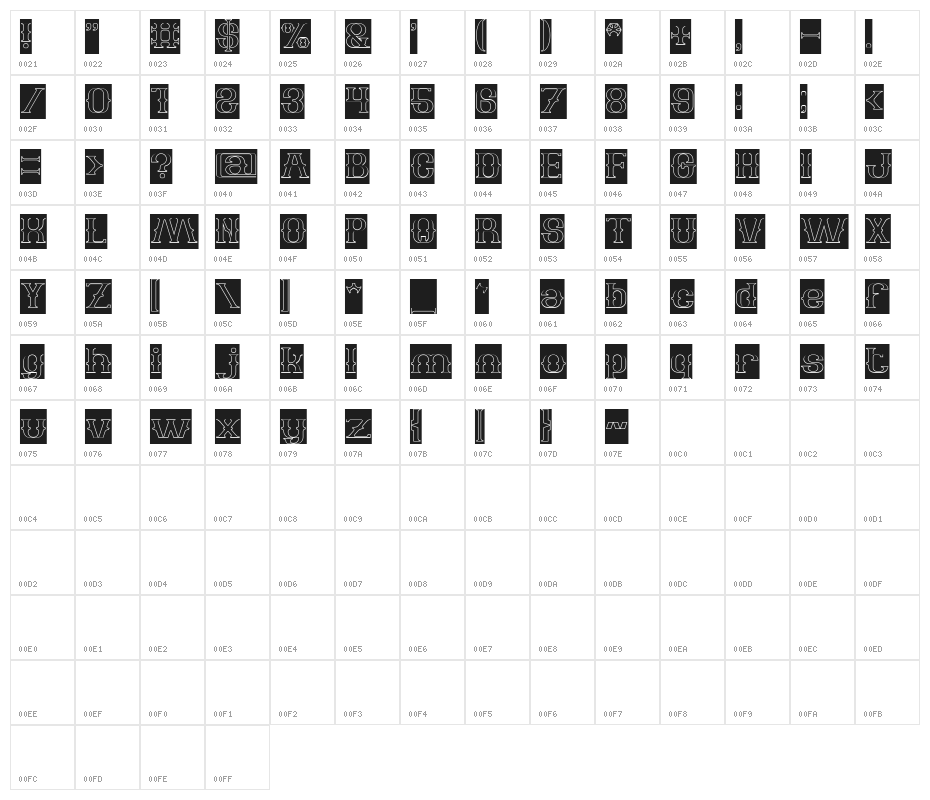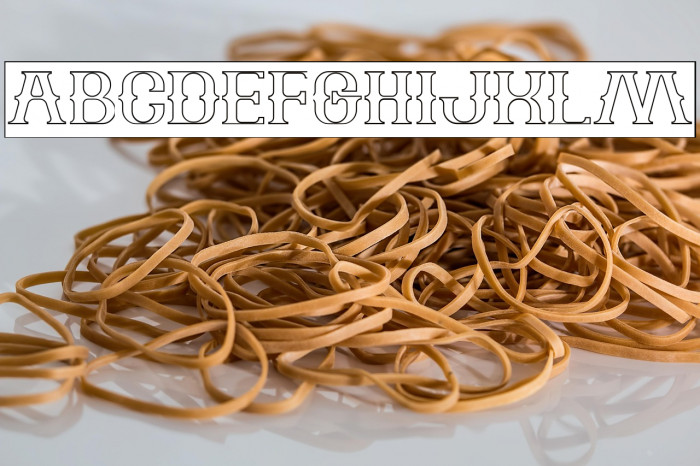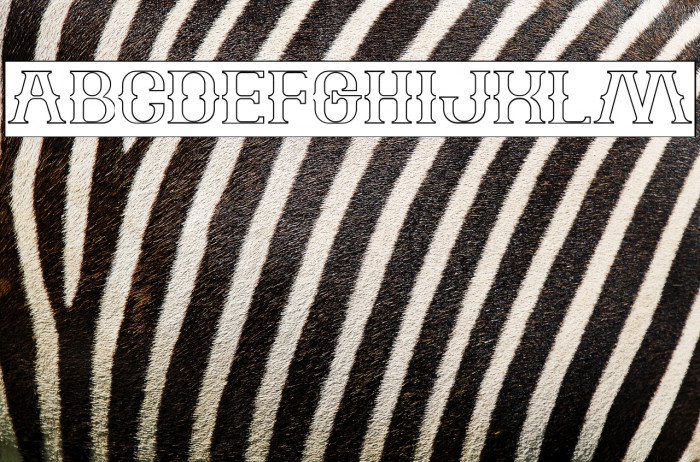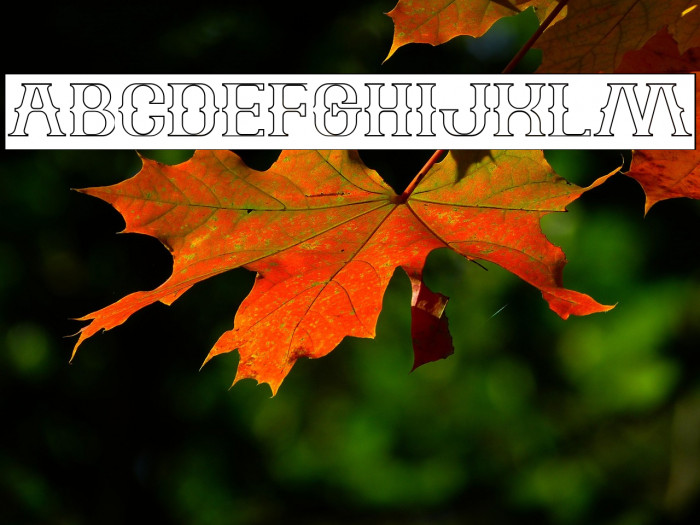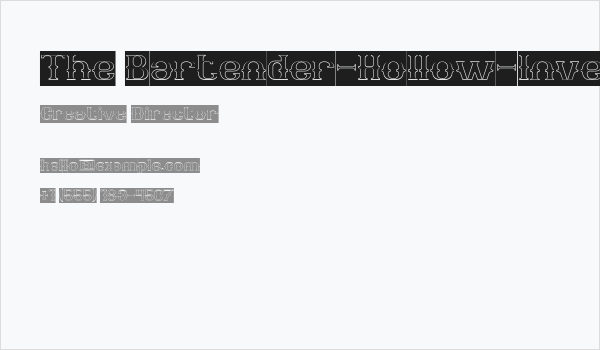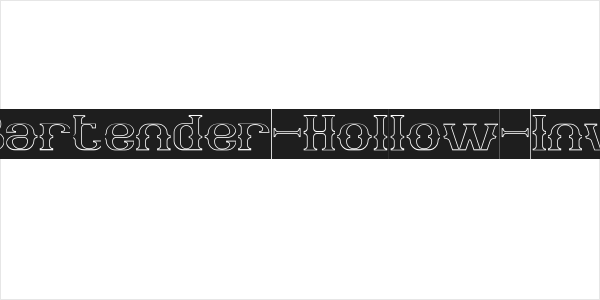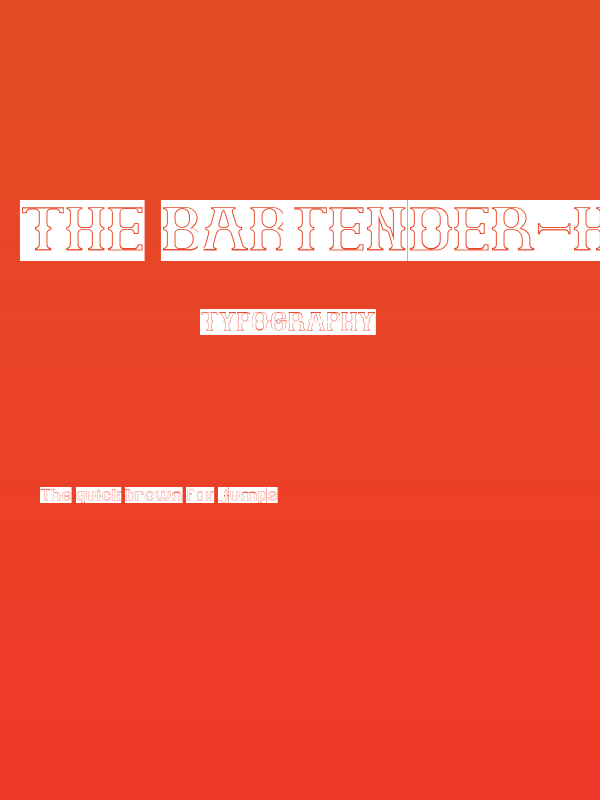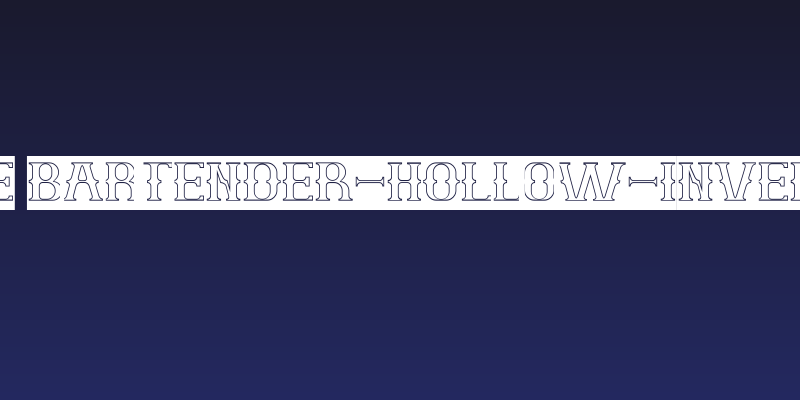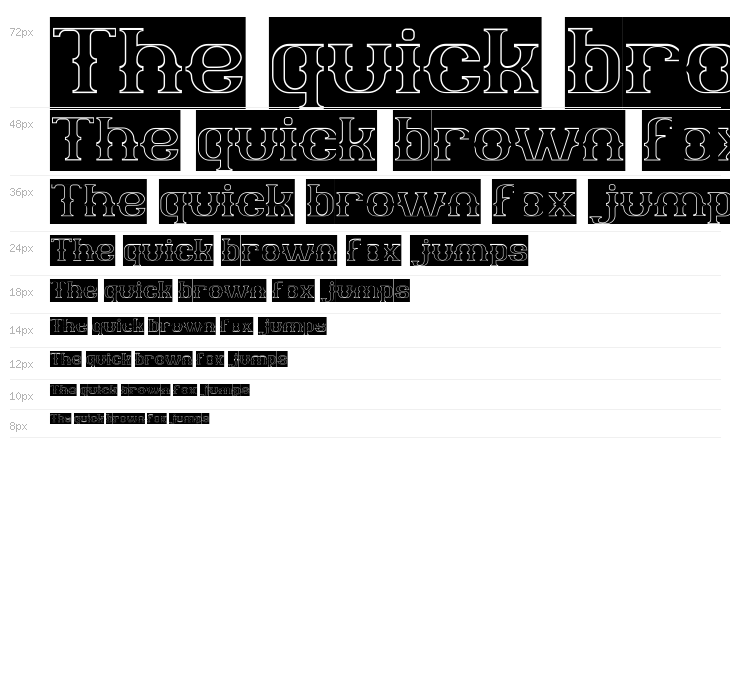
The Bartender-Hollow-Inverse Font
The Bartender-Hollow-Inverse Description
This font features a unique hollow design with an inverse style, where the interior of each character is transparent, creating a striking visual effect. The characters are outlined with a consistent stroke width, giving them a bold appearance despite the hollow centers. The uppercase and lowercase letters maintain a uniform height, contributing to a cohesive look. The numbers and special characters follow the same design principles, ensuring consistency across all glyphs. The font's geometric shapes and clean lines make it suitable for modern and creative projects, where a distinctive and eye-catching typeface is desired.